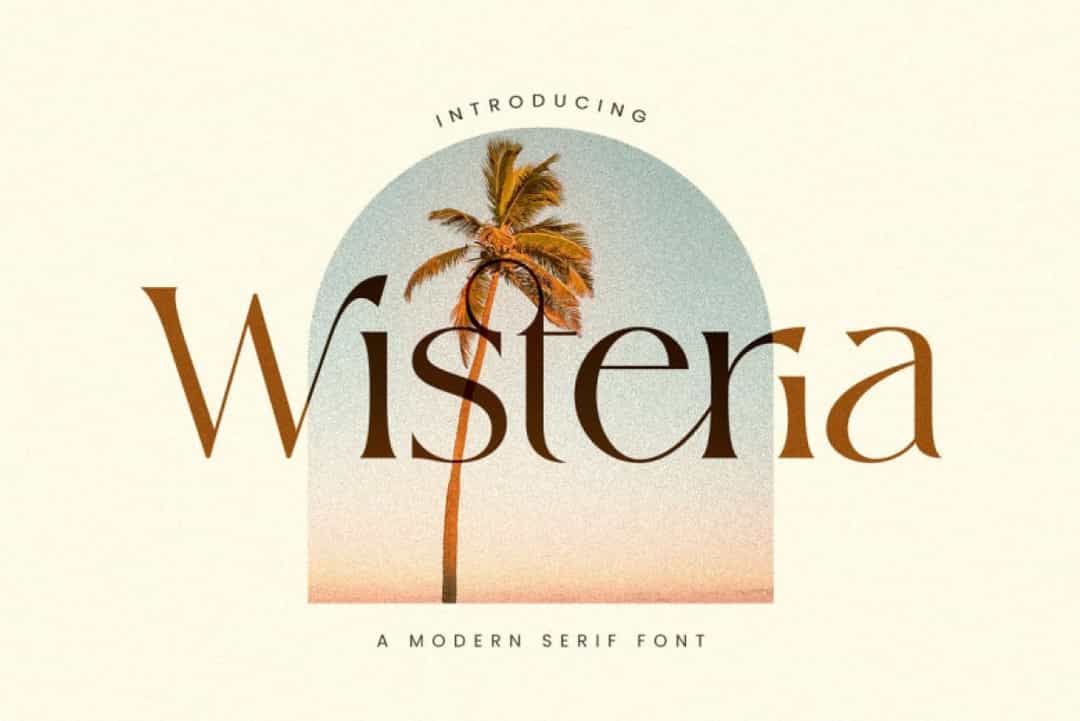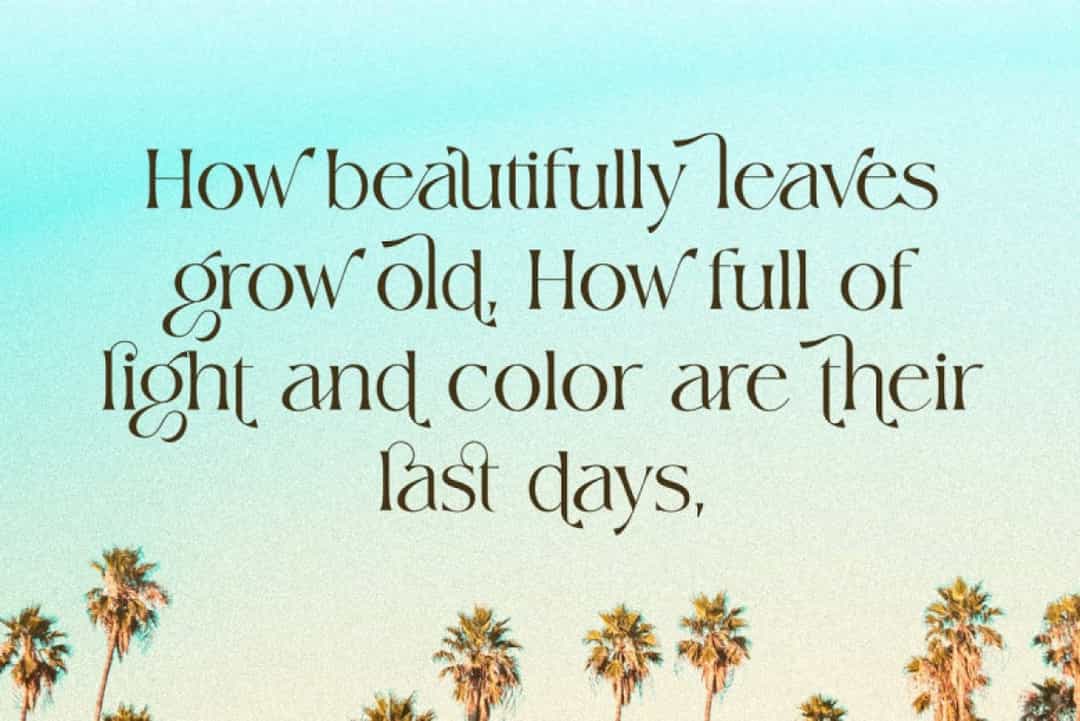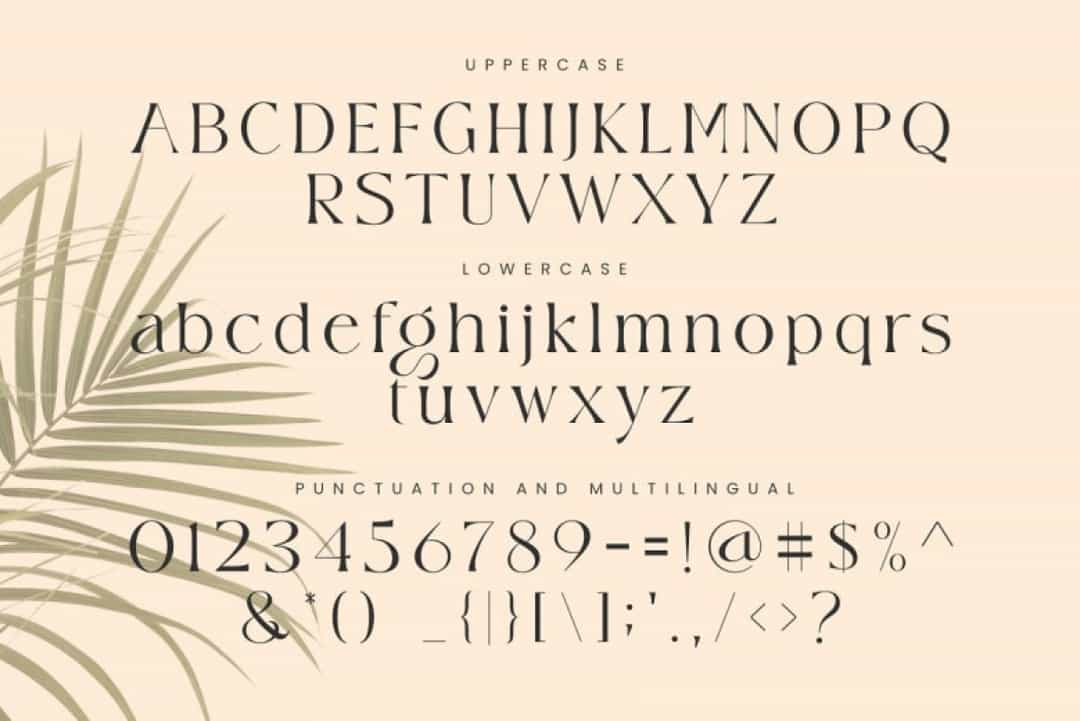
Discover Wisteria Font, part of the Serif collection—a versatile and unique font perfect for adding a personal touch to your projects. Download it for free and enjoy crafting designs with style, from invitations to social media posts. This font is available exclusively for personal use, giving you the freedom to create without limits. Unlock your creativity with Wisteria Font today!
Wisteria Ligature Serif Font is an elegant and modern serif typeface. Perfect for magazine logos, magazines, social media profiles and more; already matched and ready to use together on your next project!